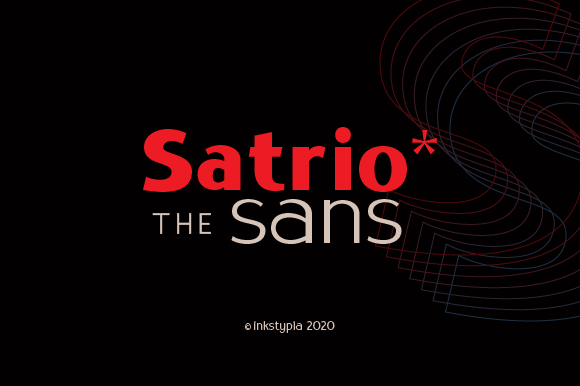
Satrio Font
**Unleash the Power of Satrio: The Font That Elevates Your Digital Presence**
In the realm of online communication, your words carry immense weight. They shape your brand's identity, convey your message, and leave a lasting impression on your audience. But what if your words could not only speak but also captivate, inspire, and entice?
Introducing Satrio Font, the ultimate digital typeface meticulously crafted to elevate your online presence to unprecedented heights. With its sleek, modern lines and timeless minimalism, Satrio empowers you to make a bold statement that commands attention and resonates with your audience.
**Immerse Yourself in the World of Satrio**
Satrio is not just a font; it's an experience that will transform the way you communicate online. Its clean, sans-serif design exudes sophistication and professionalism, while its subtle curves evoke a sense of warmth and approachability.
Whether crafting compelling social media posts, designing eye-catching website headers, or creating impactful digital marketing materials, Satrio effortlessly blends into any context, enhancing your message with a touch of understated elegance.
**Why Choose Satrio?**
**1. Timeless Appeal:** Satrio's minimalist design transcends fleeting trends, ensuring your content remains visually appealing for years to come.
**2. Versatility Unbound:** From sleek and professional to warm and inviting, Satrio's adaptable nature seamlessly complements diverse design aesthetics.
**3. Uncompromising Legibility:** Every letterform in Satrio is meticulously crafted for optimal readability, ensuring your message is conveyed with crystal-clear clarity.
**4. Emotional Resonance:** Satrio's subtle curves and smooth lines evoke a subconscious connection, fostering trust and building rapport with your audience.
**5. Digital Dominance:** Designed specifically for digital platforms, Satrio empowers you to harness the full potential of the online realm, making your content stand out from the crowd.
**Embrace the Satrio Advantage**
With Satrio Font at your fingertips, you'll unlock a world of creative possibilities. Experience the transformative power of a font that elevates your words, empowers your brand, and leaves an unforgettable impression on your audience.